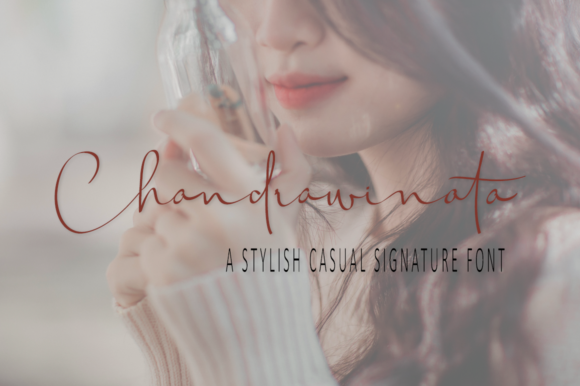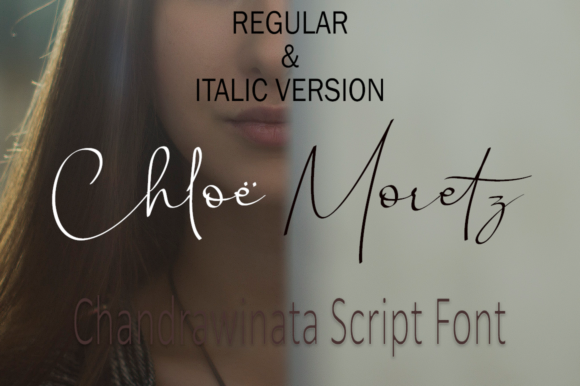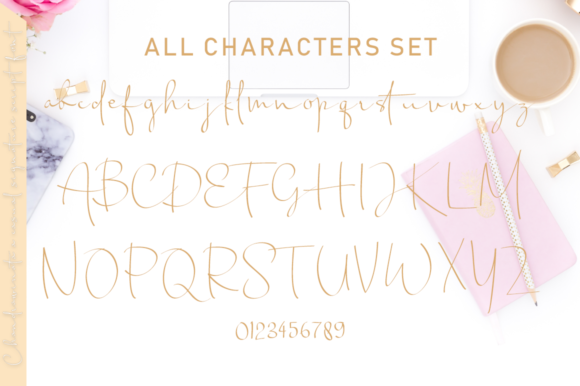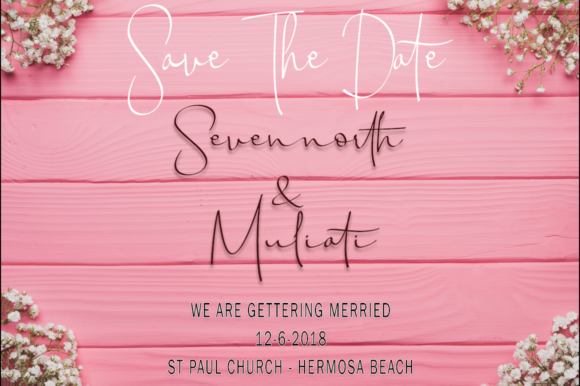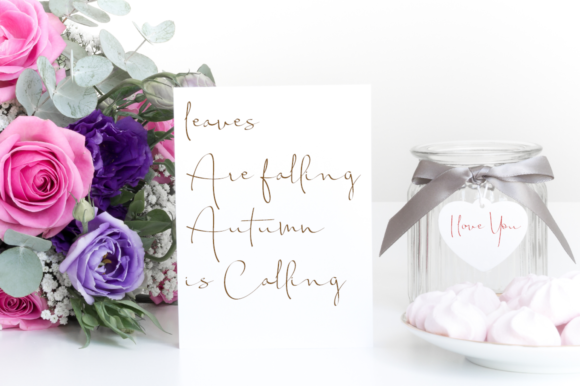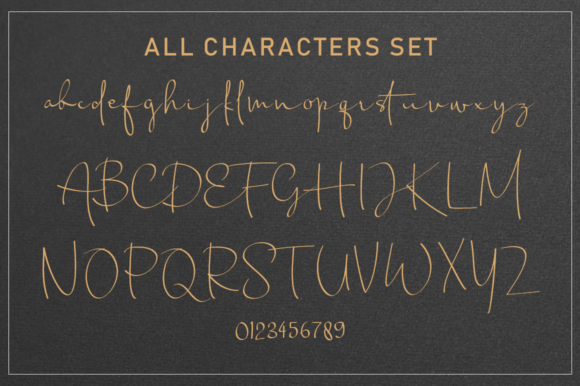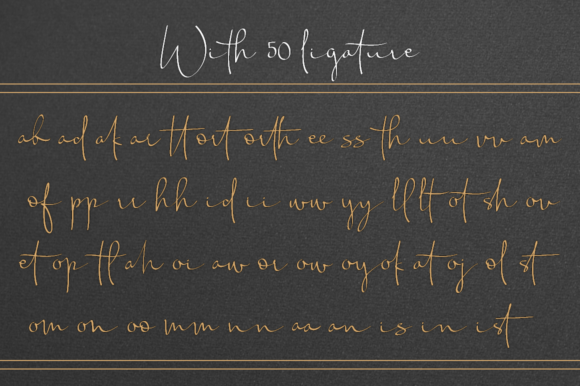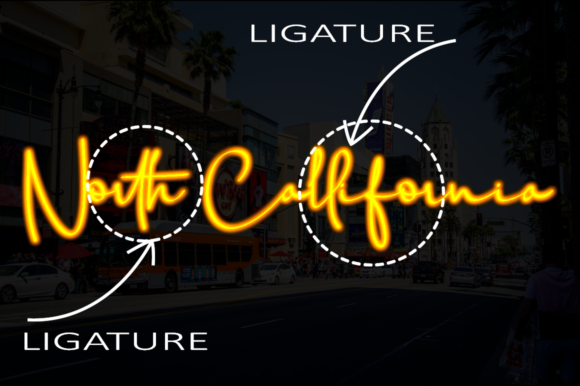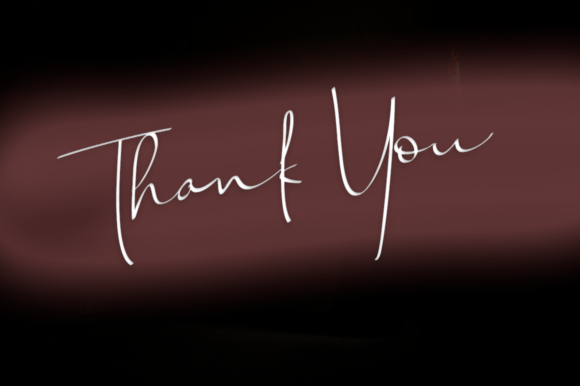
Chandrawinata Font
About Chandrawinata Font
The Chandrawinata is a stylish, casual, signature script font. It’s perfect for adding a touch of elegance to your design.